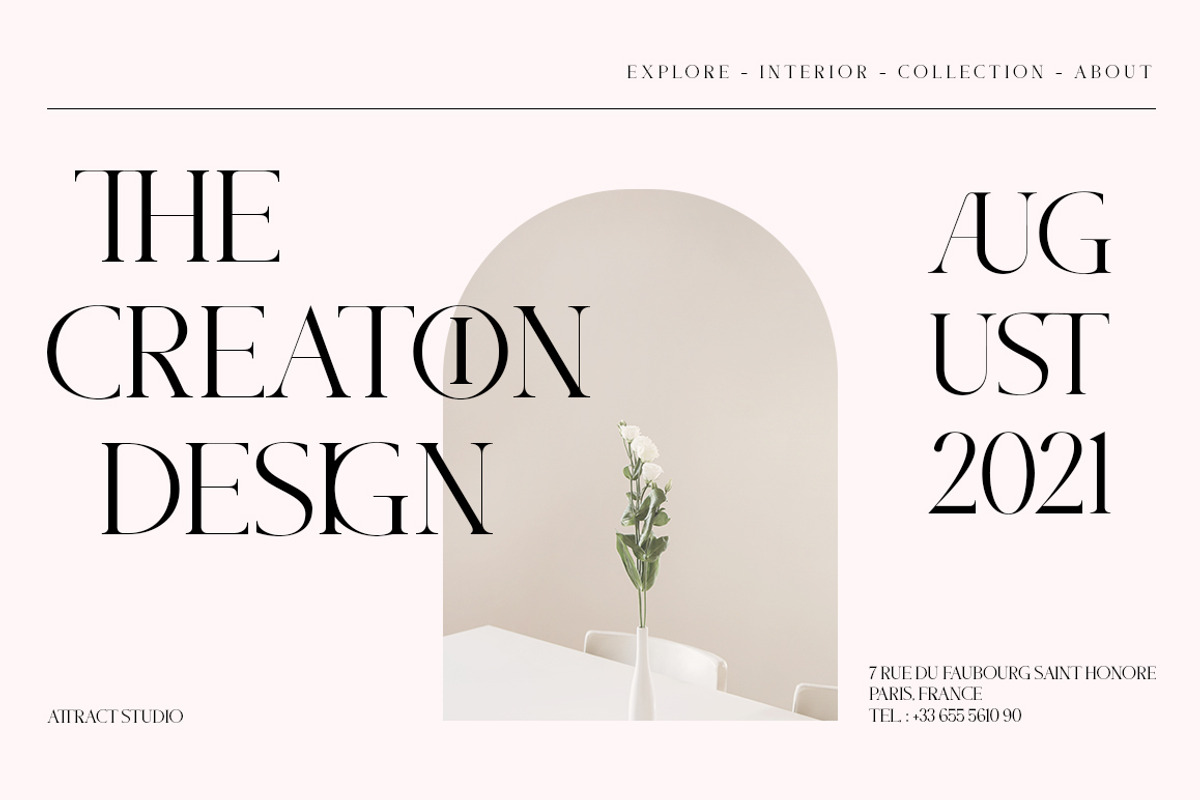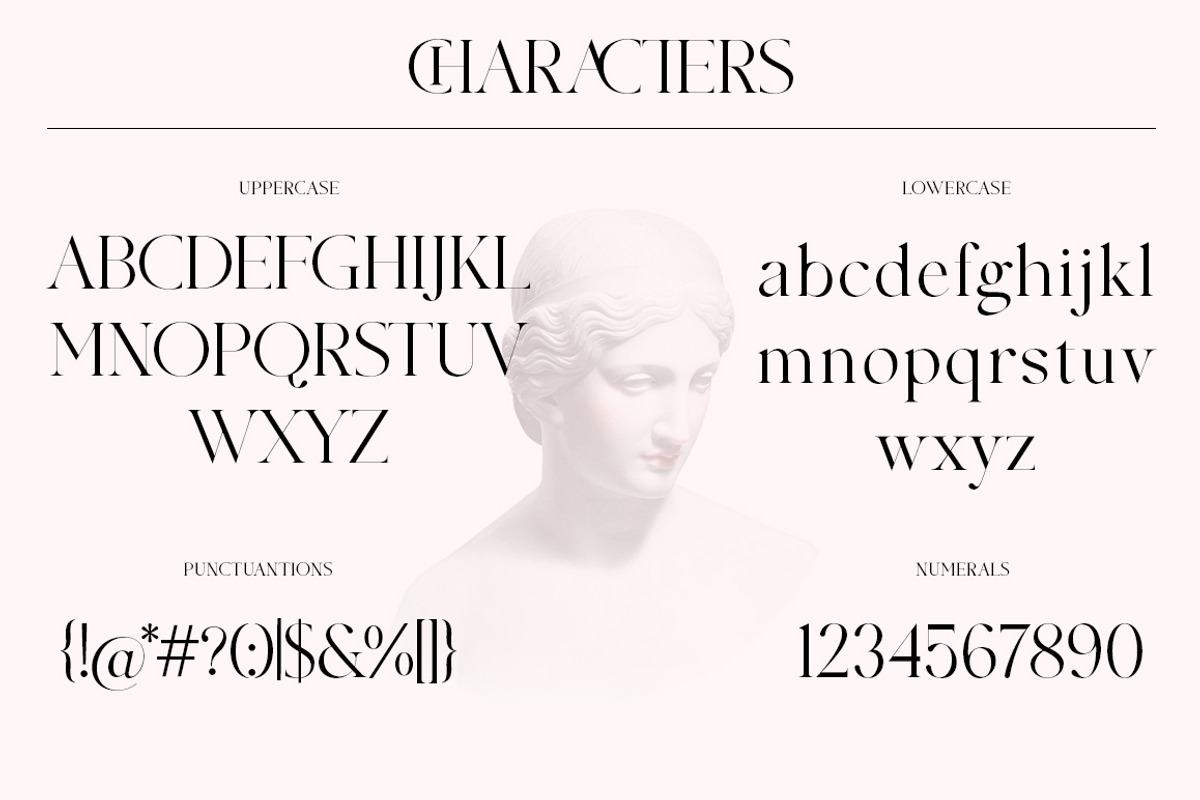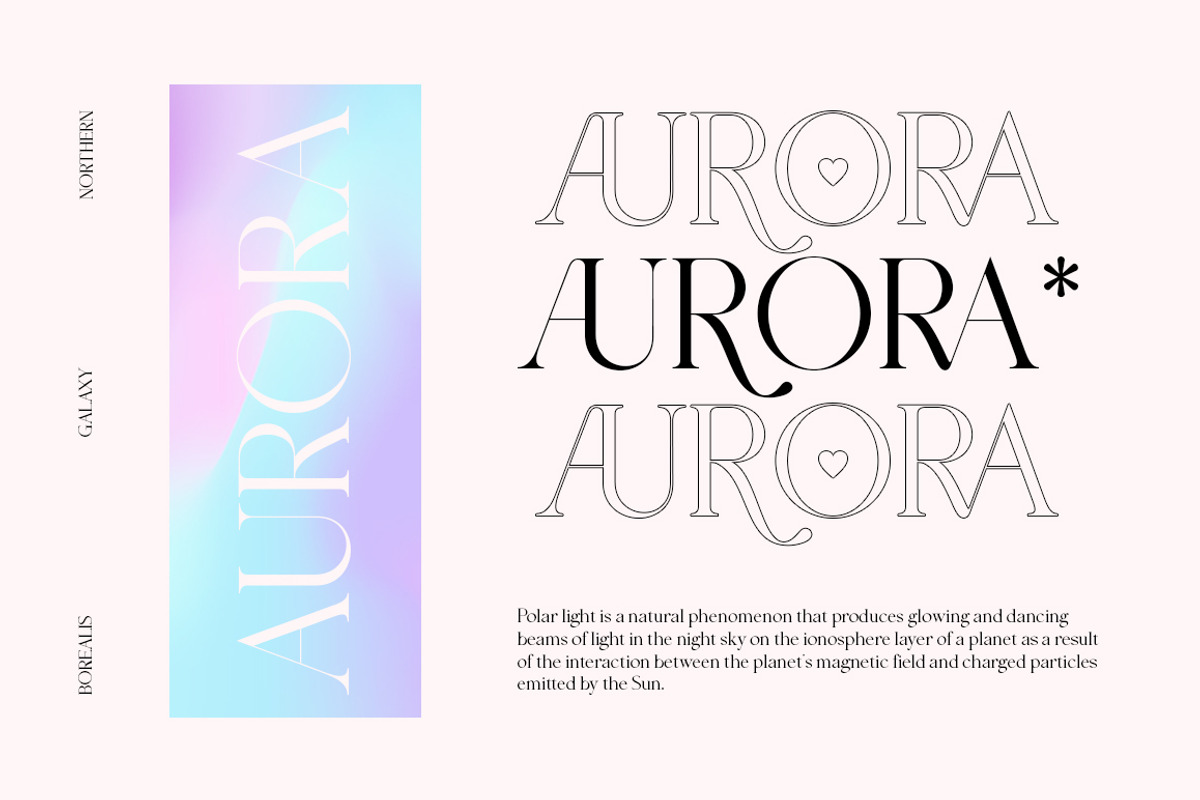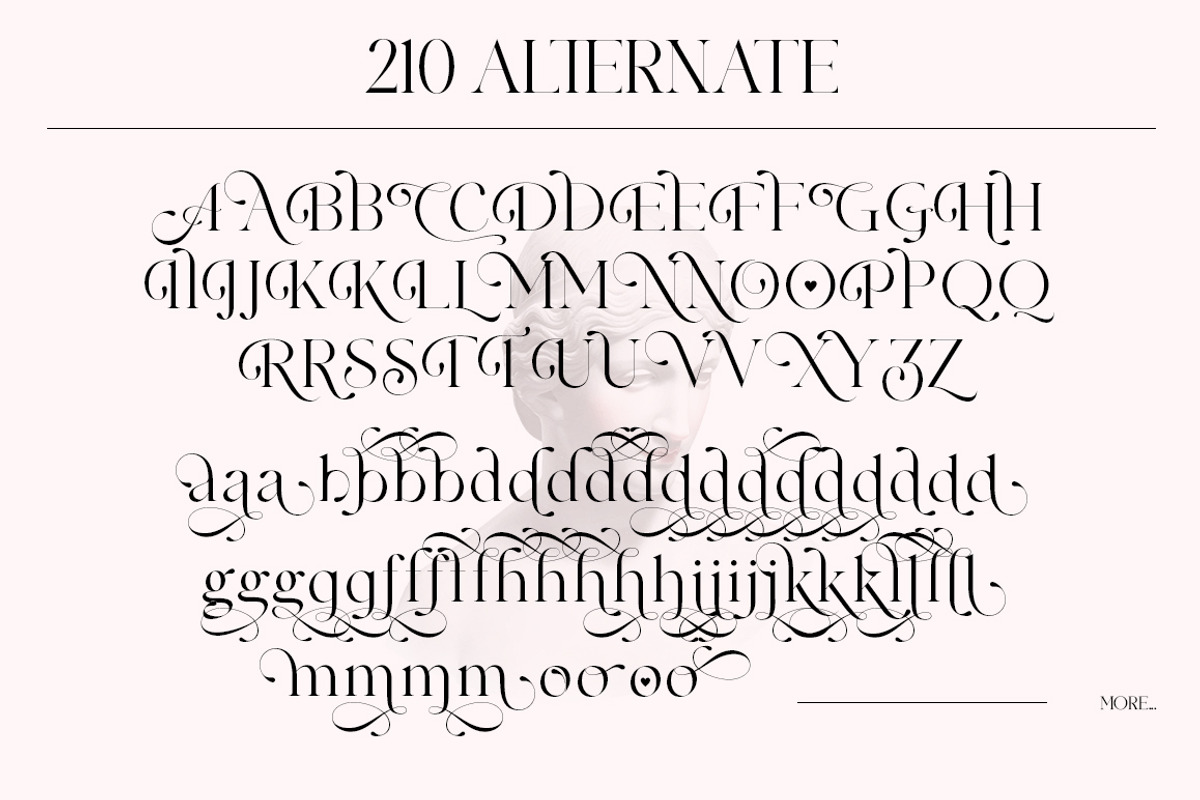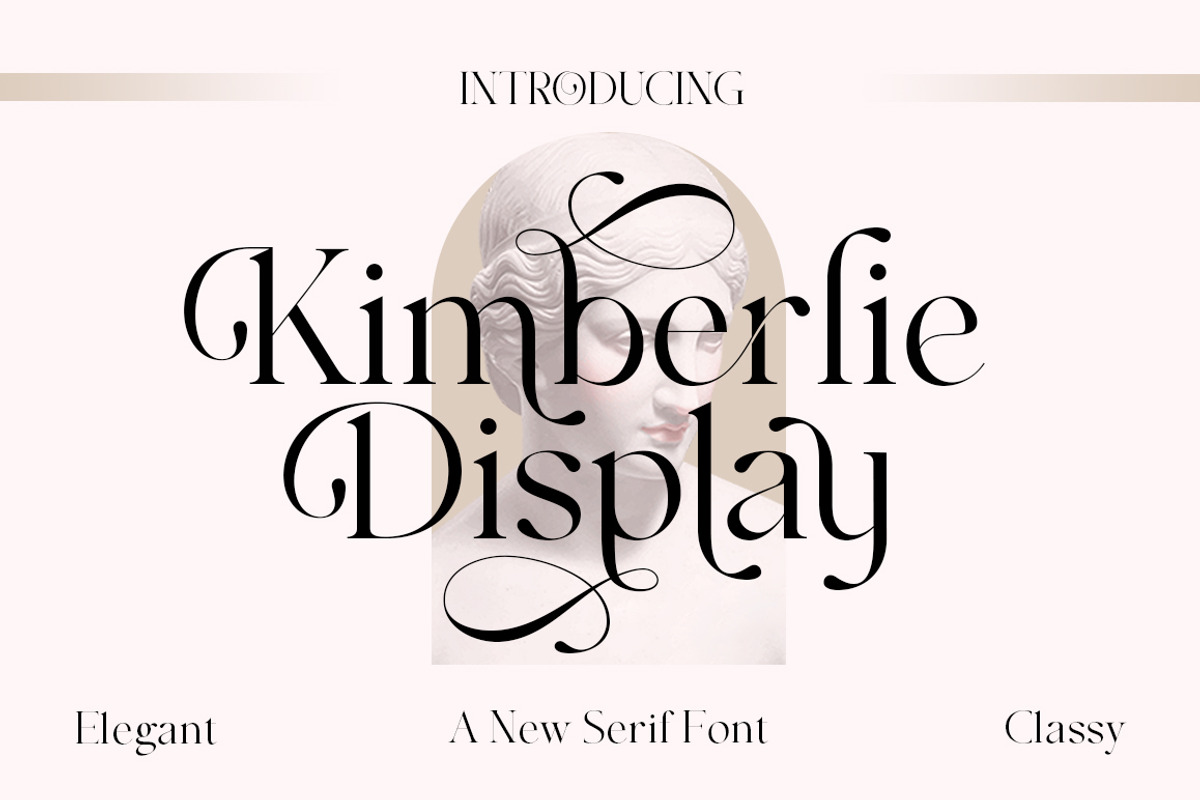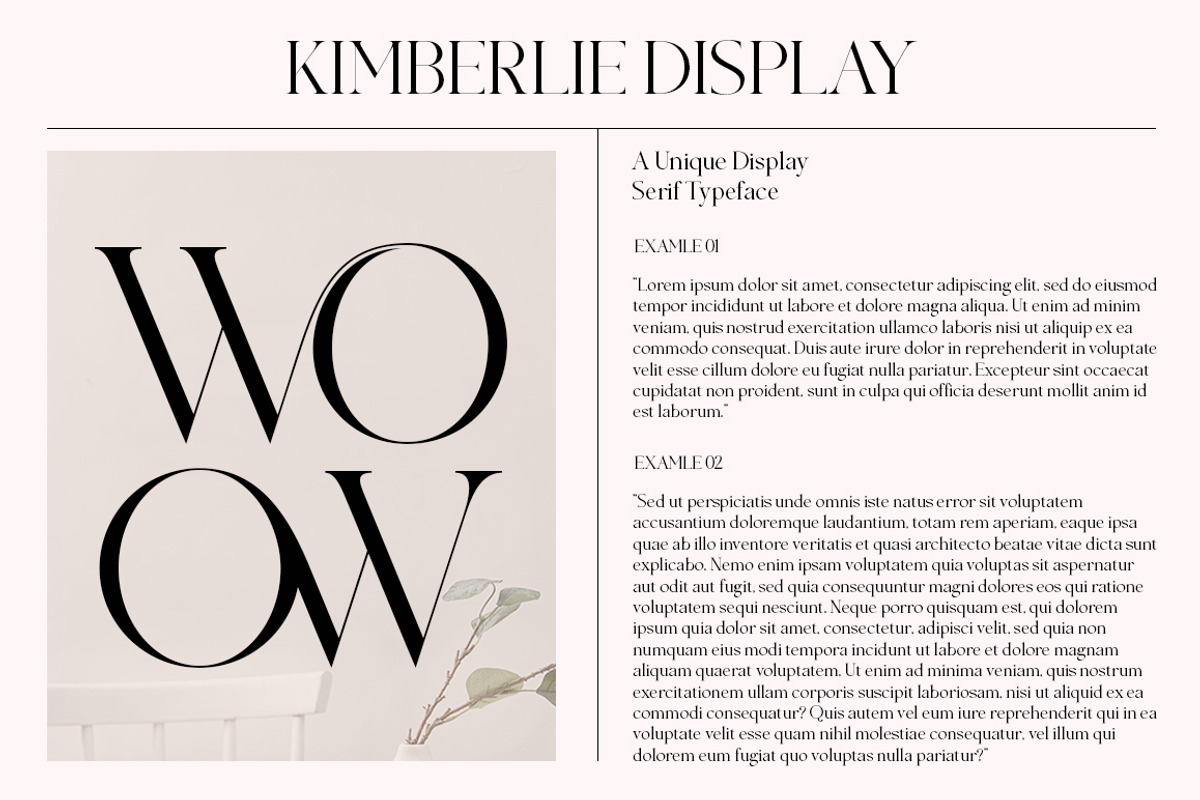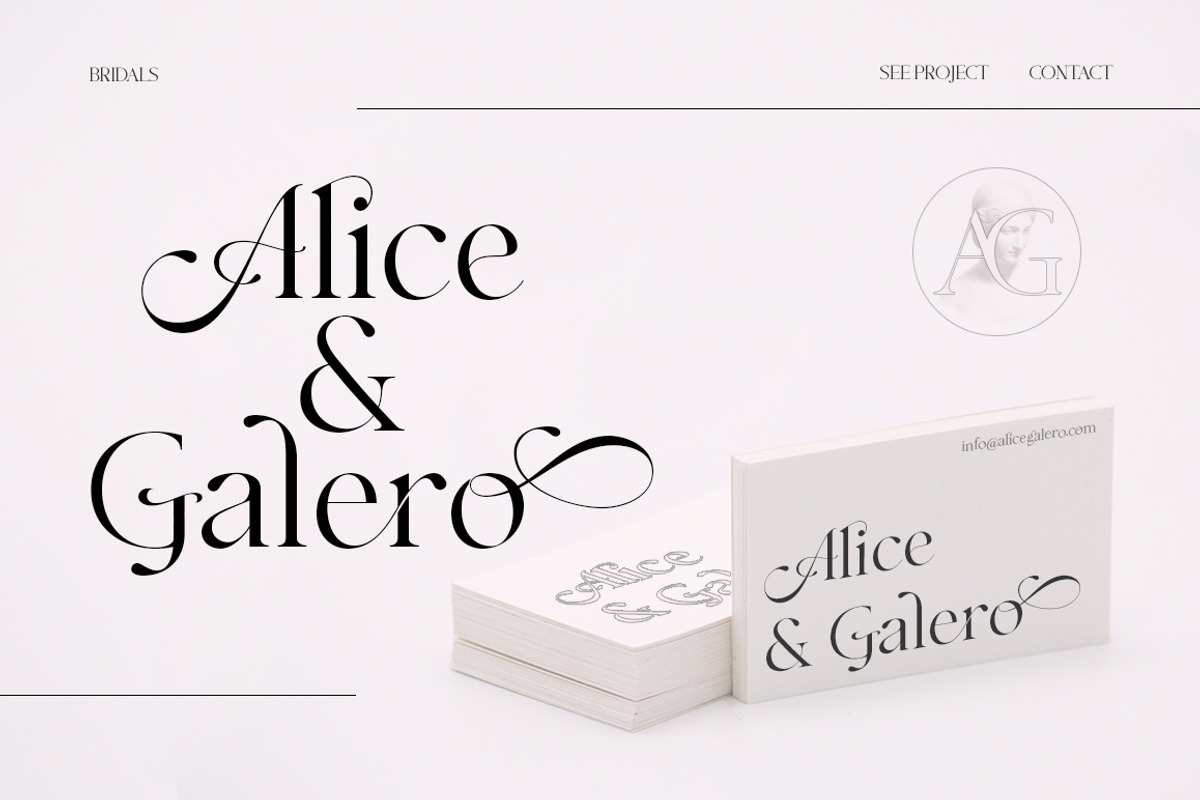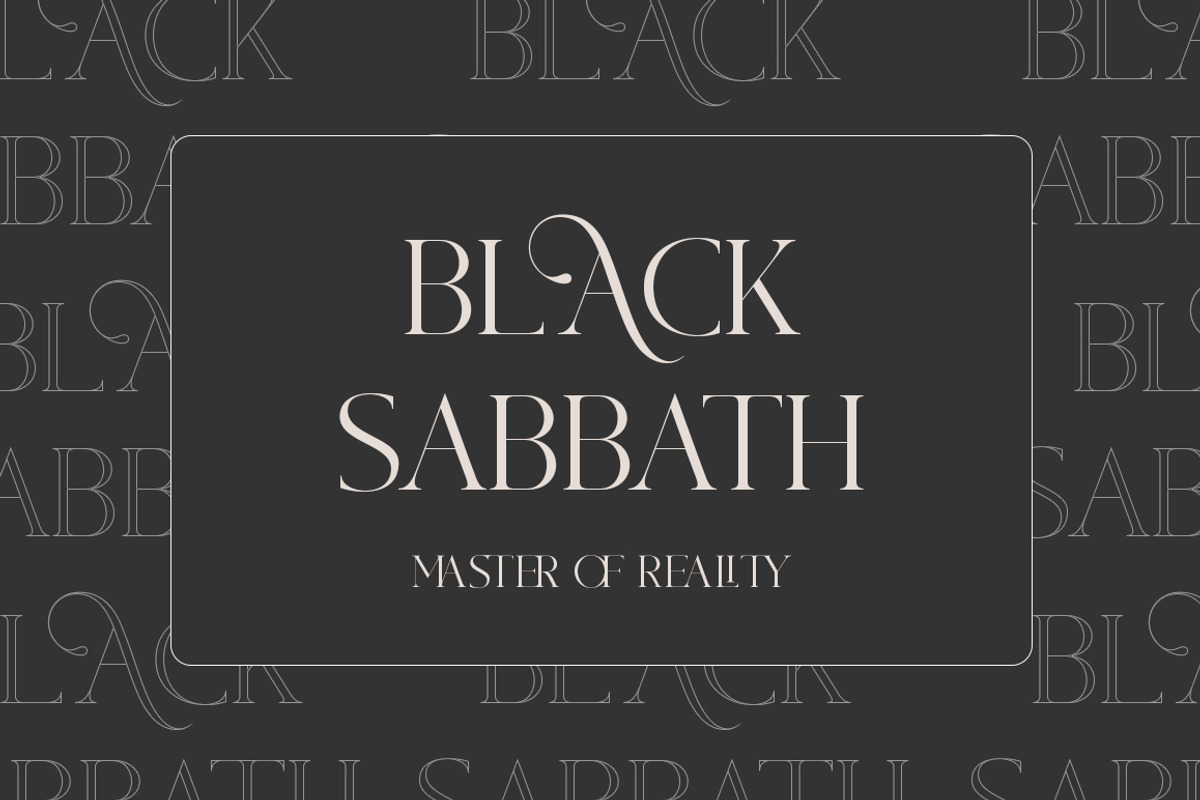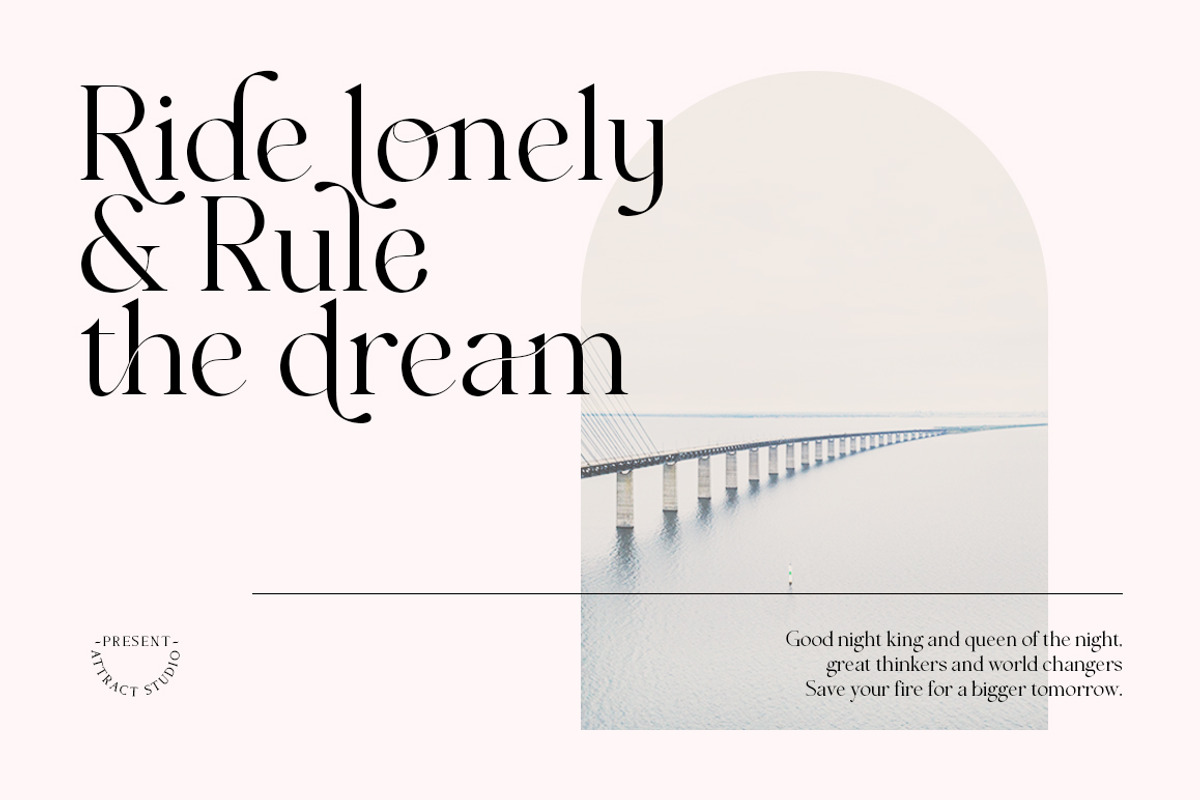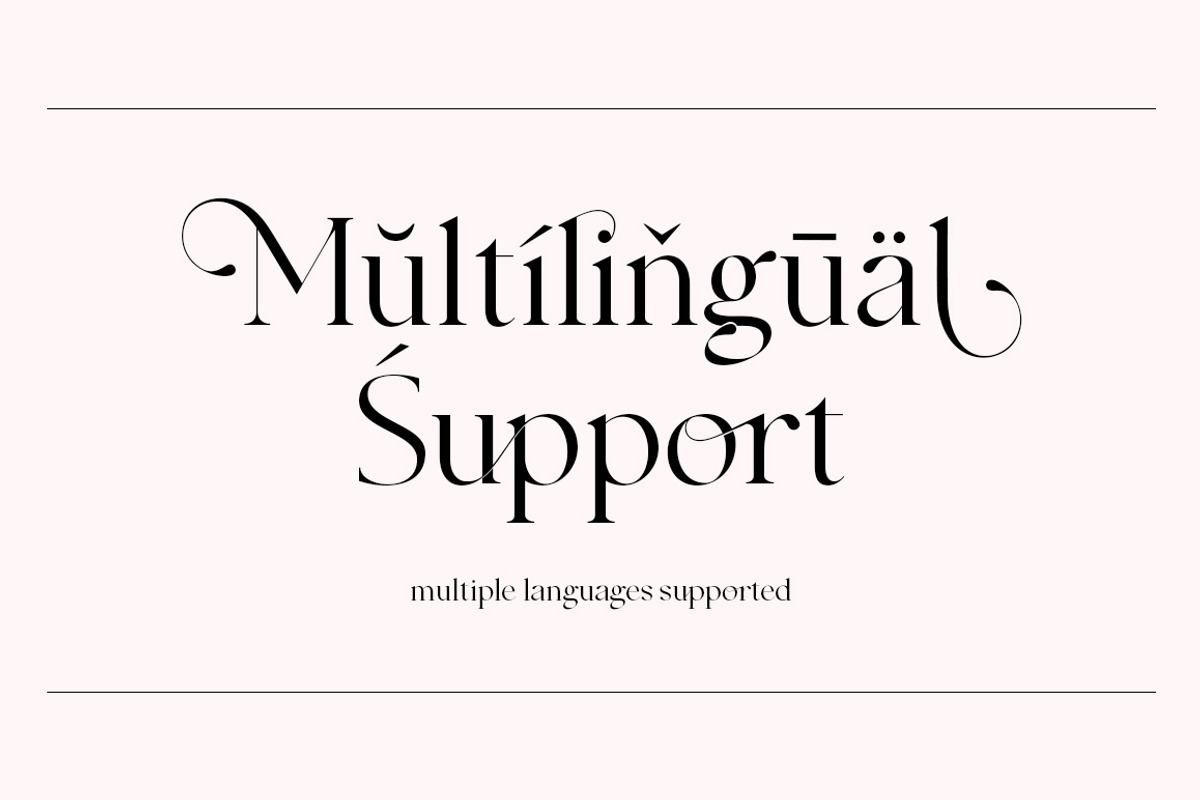
Kimberlie Display
Kimberlie is a luxurious display serif font with unique character by combining geometric shapes with organic curvy details. It is a unique typeface for your individual personality. Inspired by old-style serif and contemporary serif fonts. The extreme contrast between thick and thin strokes gives a harmonic and stylish look. Elegant and sensuality didone serif enhanced by ligatures, alternates and swashes. Kimberlie features OpenType with 1025+ glyphs, 210 Stylistic Alternates, 486 Ligatures. Perfect for a wide range of uses. From greeting cards to magazines, wedding invitations, logos to website etc.